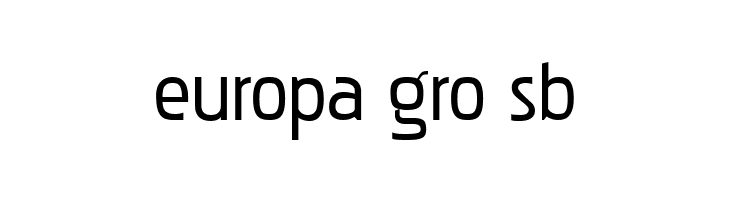
A bold, dot-patterned font with a modern, digital aesthetic.
A bold, geometric font with a futuristic and edgy style.
A playful font with characters shaped like jigsaw puzzle pieces, ideal for fun and creative projects.
A modern, elegant font with high contrast and subtle serifs, perfect for luxury branding.
A sleek, modern italic font with smooth curves and elegant slant.
A modern, sleek font with clean lines and geometric structure.
An oblique serif font with medium weight and elegant, angular serifs.
Bold numerals enclosed in square boxes, offering a vintage and structured look.
A decorative, abstract font with geometric, starburst-like characters.
A modern, elegant script font with flowing curves and decorative flourishes.
A decorative cursive font with elegant loops and swashes.
An elegant script font with intricate swashes and high contrast strokes.
An elegant, decorative script font with intricate swashes and flowing loops.
A rugged, distressed font with a jagged, chaotic appearance.
A modern script font with elegant, flowing curves and decorative elements.
A bold, gothic-style font with jagged circular outlines for each character.
A bold, jagged, and highly decorative display font with an intense, chaotic style.
A bold, modern font with strong, angular lines and clear readability.
A playful, handwritten font with a whimsical and modern style.
A creative pictogram font with diverse, surreal icons for each character.
A decorative font with characters designed as bird shapes, offering a whimsical and artistic style.
A whimsical, hand-drawn font with artistic, elongated characters.
A dynamic, brush-style font with expressive, fluid strokes.
A playful, handwritten font with a casual and dynamic style.
A playful, handwritten-style font with dynamic, irregular strokes.
A playful, casual handwritten font with tall, narrow letters and a slight slant.
A graceful script font with flowing, handwritten strokes and elegant curves.
A playful and elegant script font with fluid, cursive letterforms.
A bold, abstract, and highly decorative font with fragmented letterforms.
An artistic and decorative font with high contrast and dynamic curves.
A bold, playful font with rounded characters and a modern style.
A dynamic, cursive font with fluid, interconnected letters and elegant strokes.
A bold, geometric font with uniform strokes and strong visual impact.
A bold, vintage-style font with high contrast and sharp serifs.